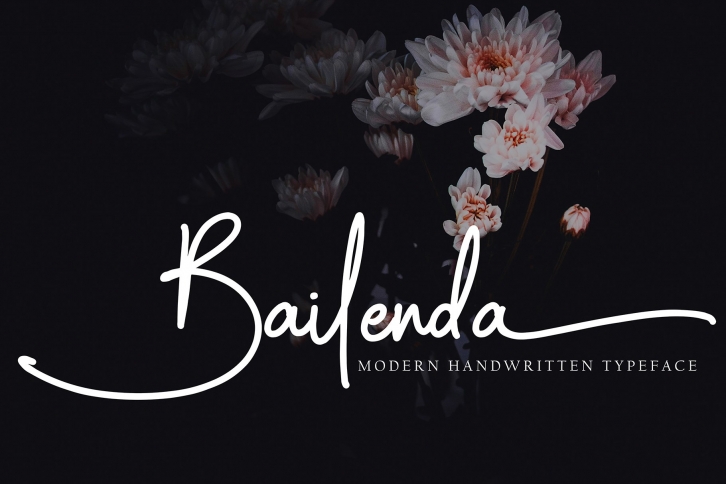
Bailenda is a beautiful font that was designed by Pineungtype. It's a great choice for designers and creatives who need such a font. It was released on August 9, 2022 and the file size is 4.60 MB. Bailenda may give a more youthful, expressive and casual look to your project. It is a very beautiful, refined, elegant, and high-quality font.